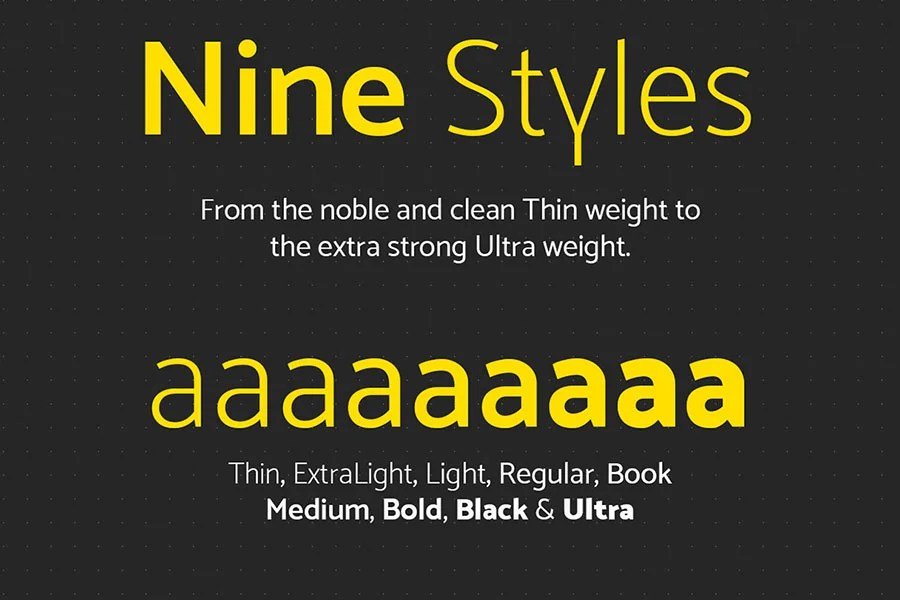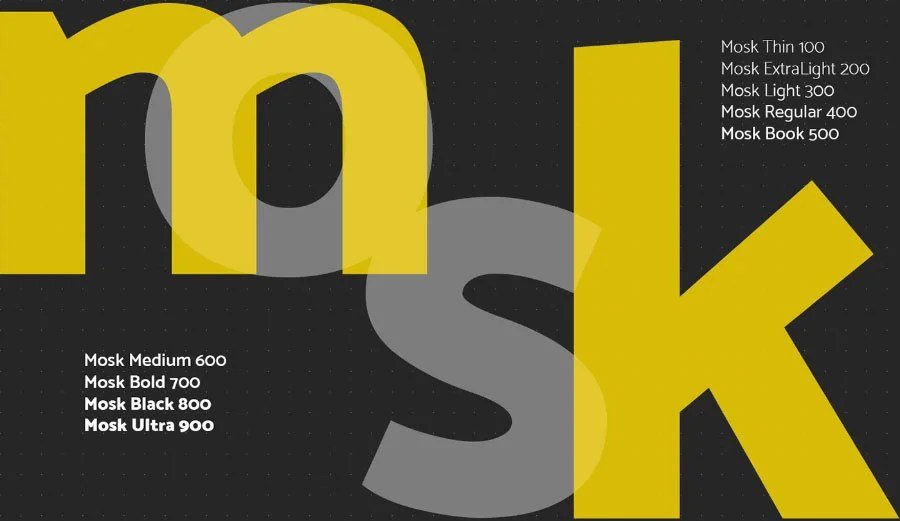
Mosk – Free Typeface
Mosk Typeface is a modern and versatile sans serif font family that combines clean lines with a sharp, contemporary style. Designed to bring a sleek and professional look to your projects, Mosk works beautifully for headlines, logos, branding, and editorial design. With multiple font weights available, it remains highly legible even as body text, making it a reliable choice for both display and paragraph use.